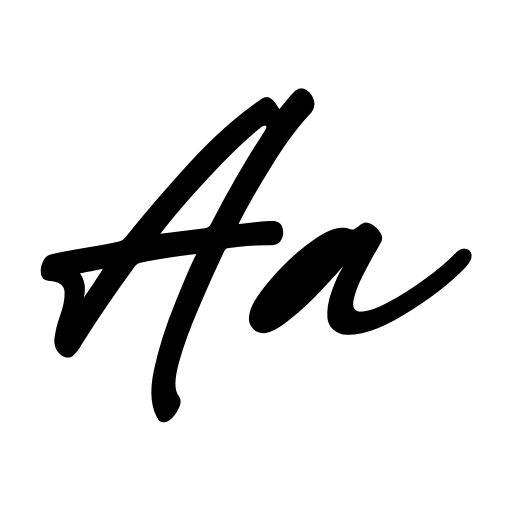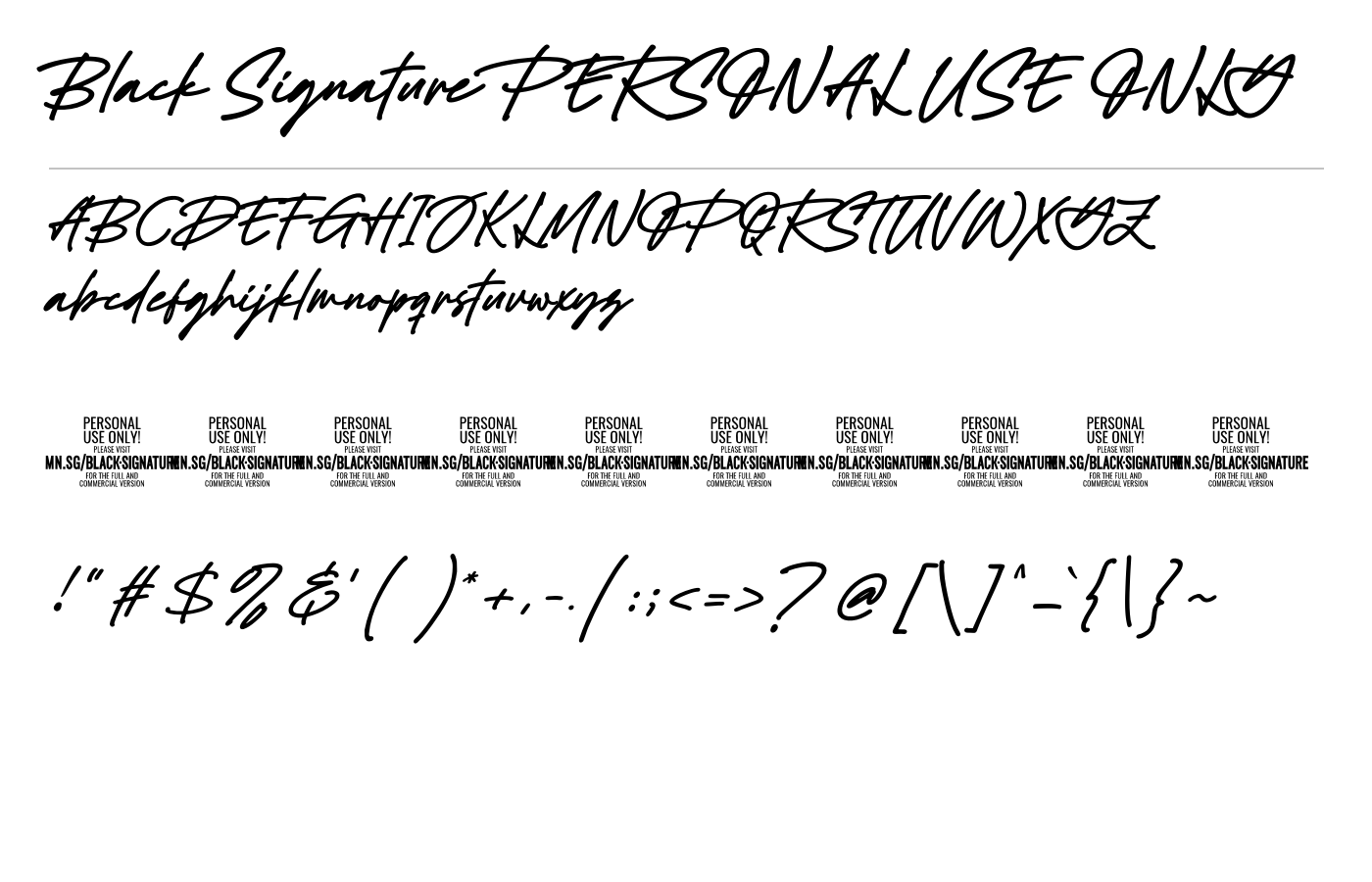
Black Signature is a lively, handwritten script font that captures the essence of natural, confident penmanship with a casual yet stylish flair. Its flowing, slightly irregular strokes convey a personal and approachable feel, making it perfect for branding, invitations, and creative projects where a touch of authenticity and modern elegance is desired. This font works beautifully in expressive headlines or logos that seek to communicate personality and warmth.
Black Signature PERSONAL USE ONLY Font
About Black Signature PERSONAL USE ONLY Font